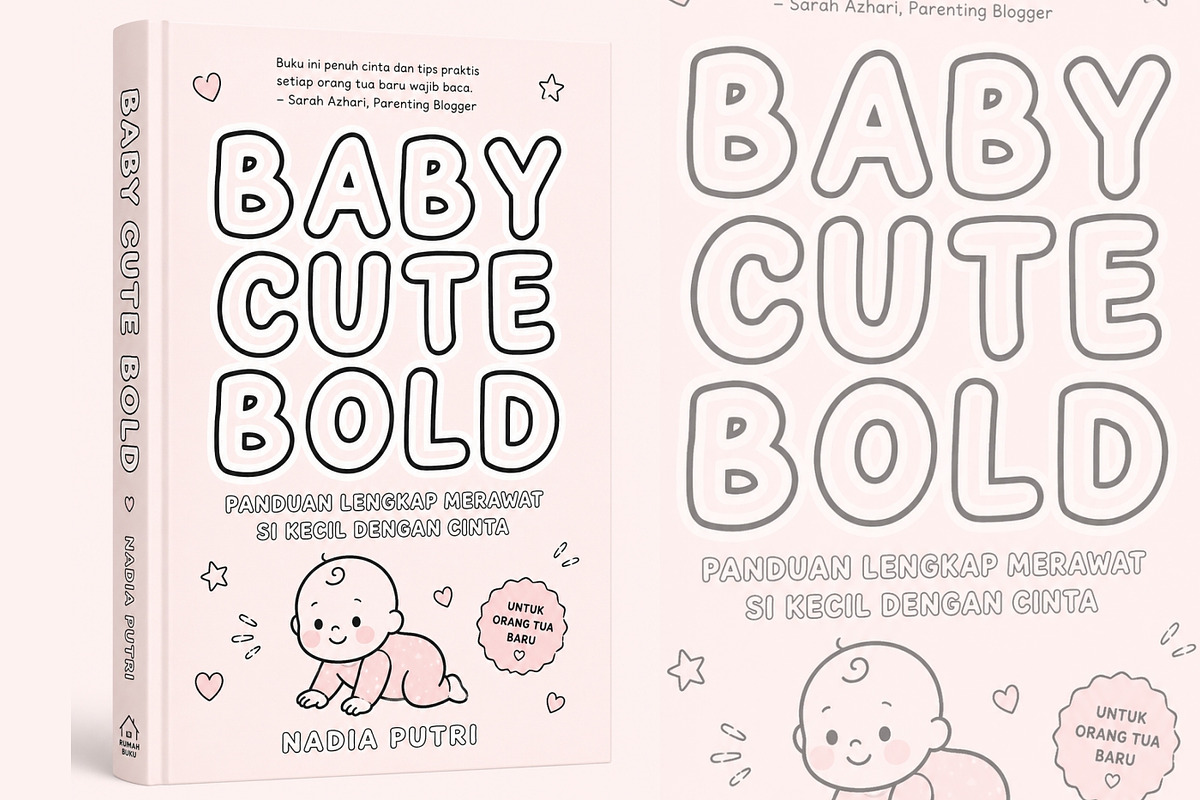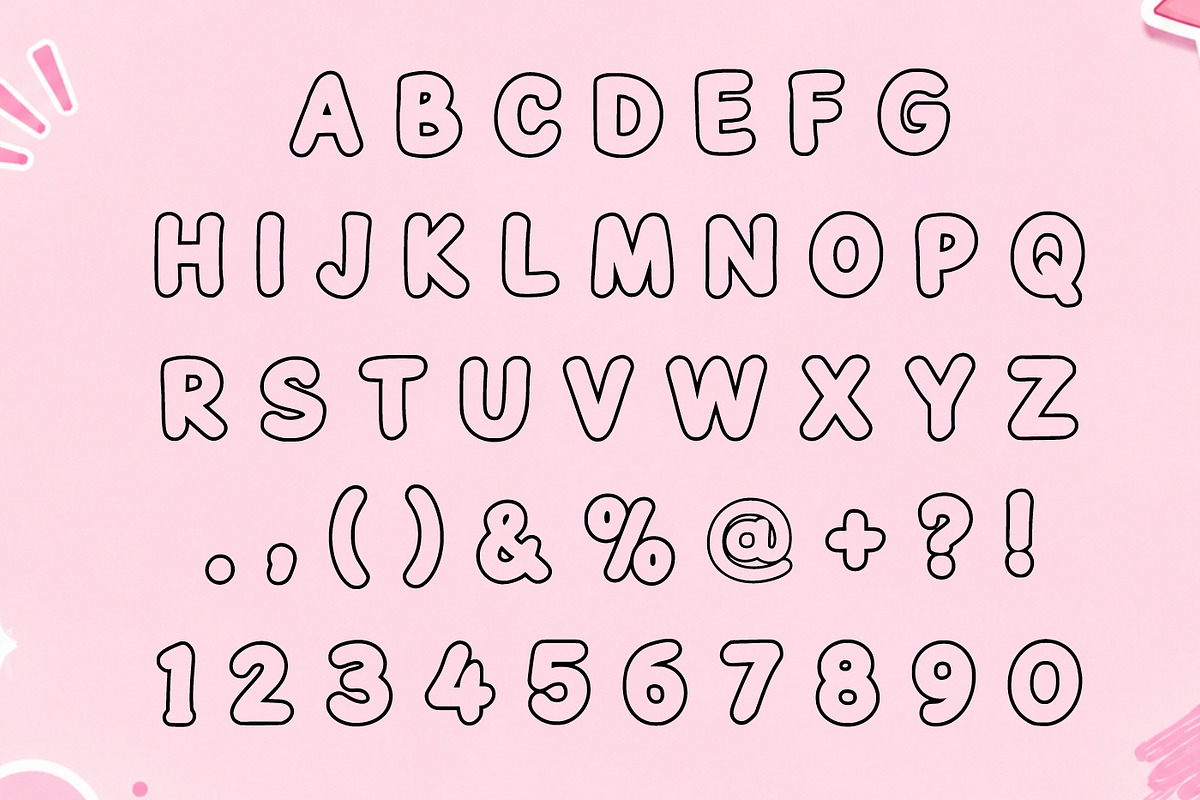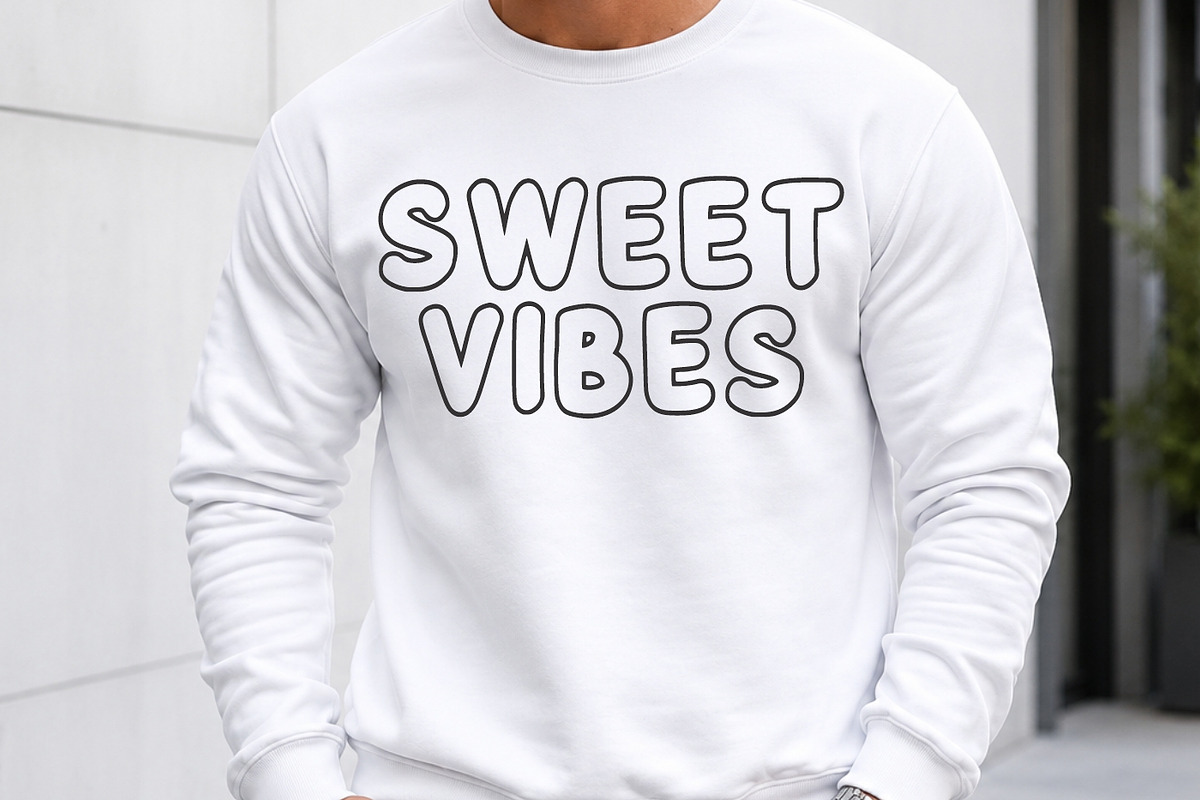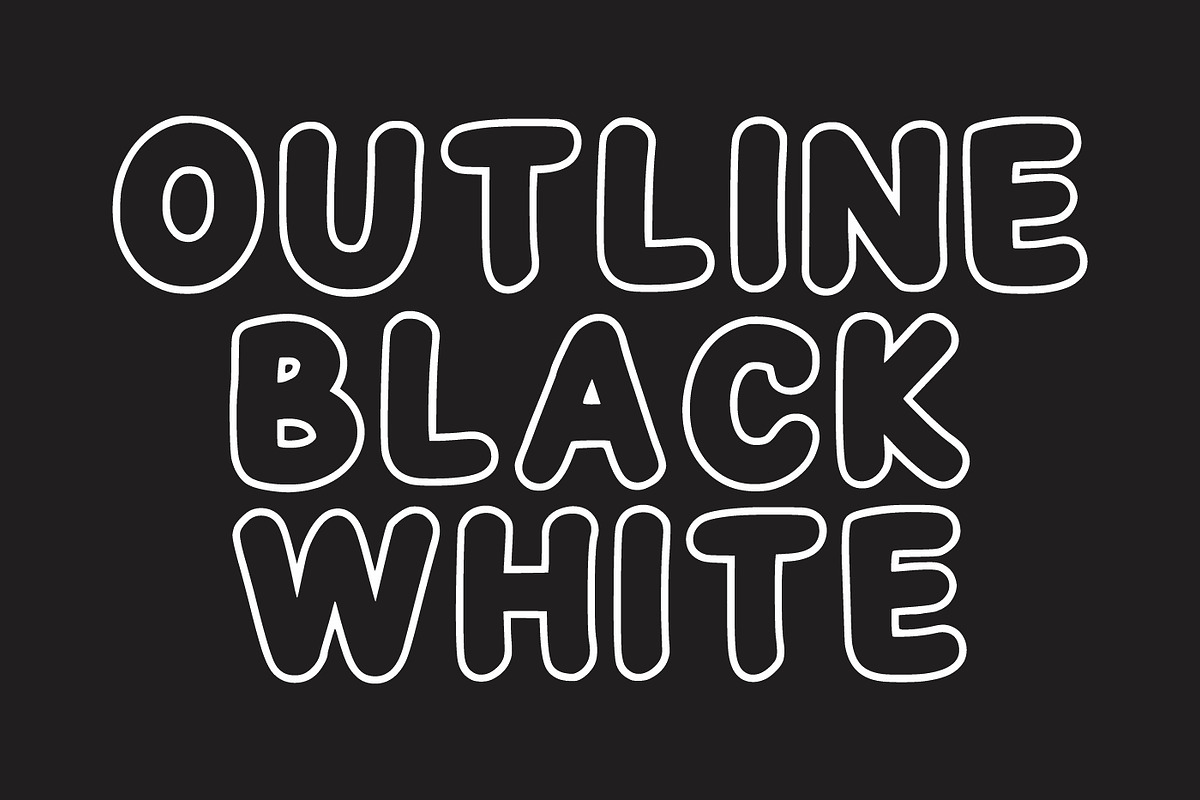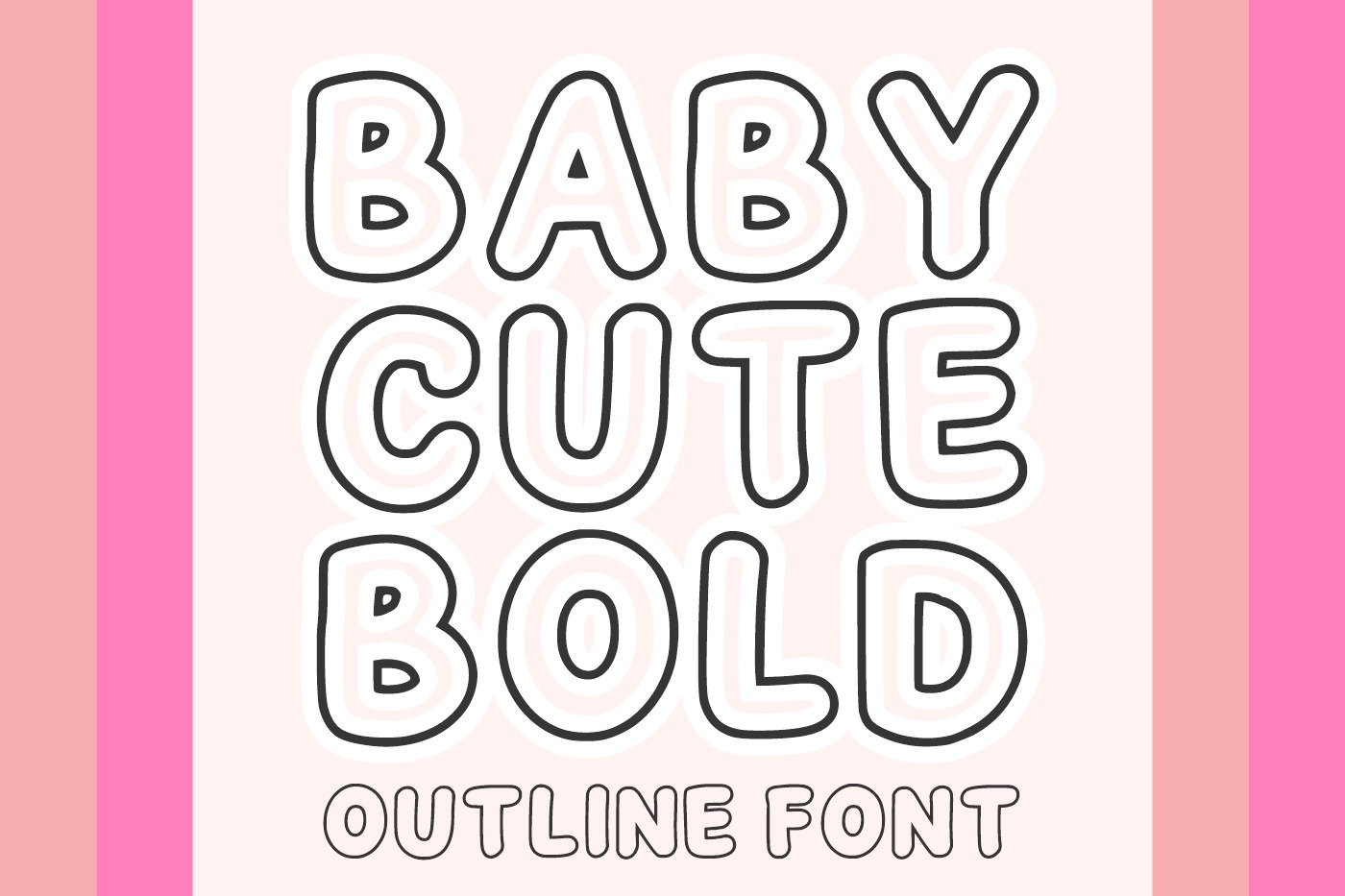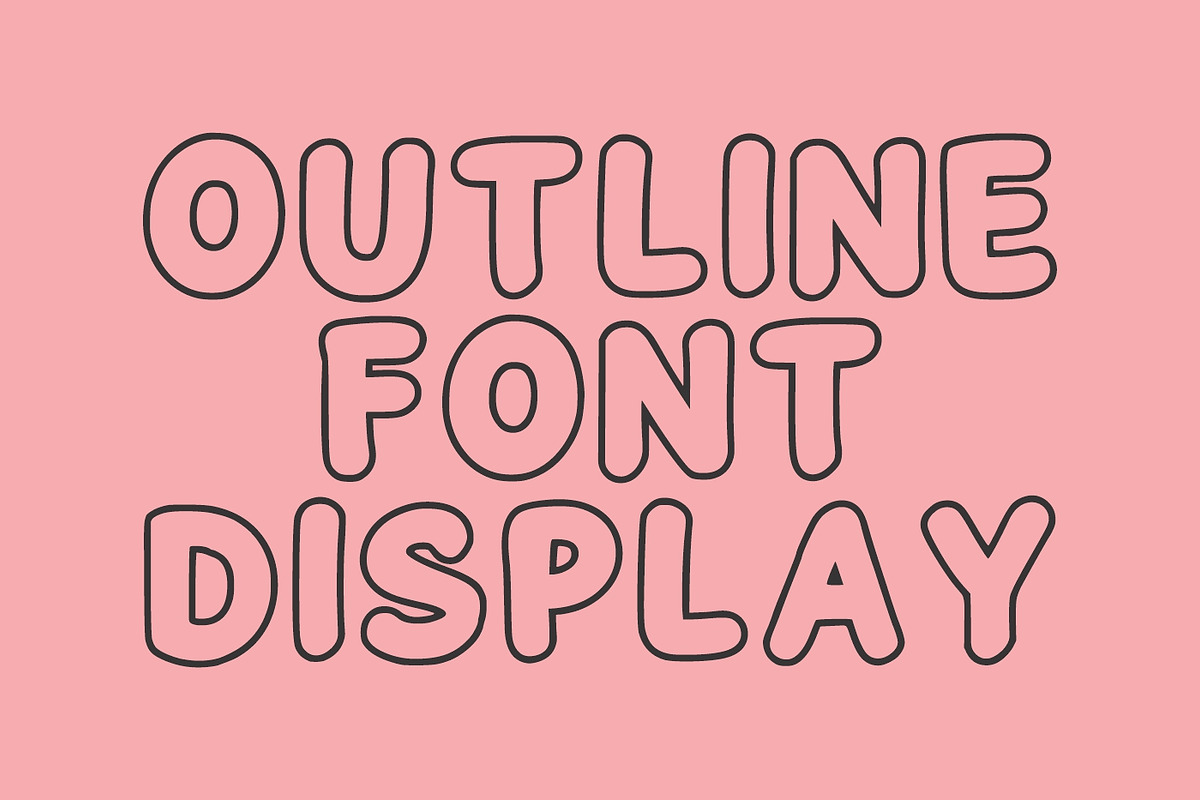
Baby Cute Bold Outline Font
Baby Cute Bold is an adorable outline display font designed to bring sweetness, fun, and creativity to your design projects. Featuring rounded letterforms, soft curves, and a charming hand-drawn outline style, this font creates a friendly and cheerful atmosphere that instantly attracts attention.
Inspired by cute children’s illustrations, kawaii aesthetics, nursery themes, and playful modern typography, Baby Cute Bold is perfect for projects that require a warm and lovable appearance. The clean outline structure gives the font a unique and versatile look, allowing it to work beautifully in both colorful and minimalist designs.
Whether you’re creating baby shower invitations, children’s book covers, nursery decorations, toy packaging, stickers, educational materials, birthday party designs, greeting cards, social media graphics, or branding for kids-focused businesses, Baby Cute Bold delivers a delightful visual experience.
The font maintains excellent readability while adding personality and charm to every word. Its playful character shapes make it ideal for headlines, logos, posters, merchandise, and digital content that aims to communicate joy, imagination, and positivity.